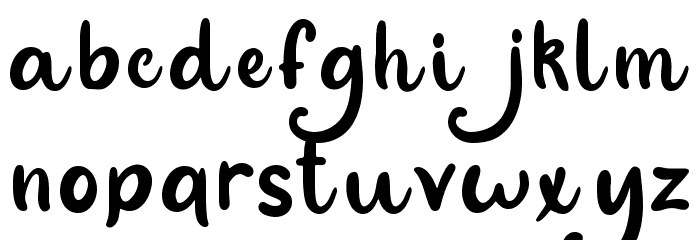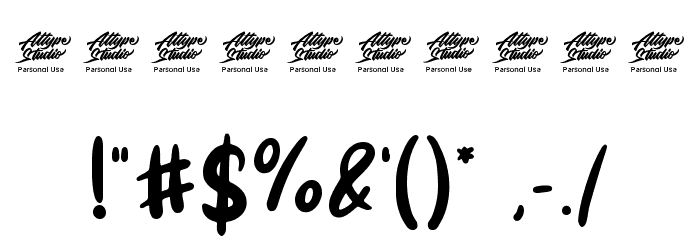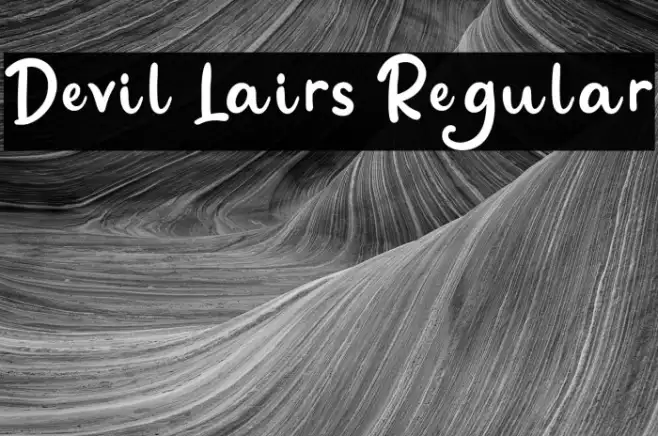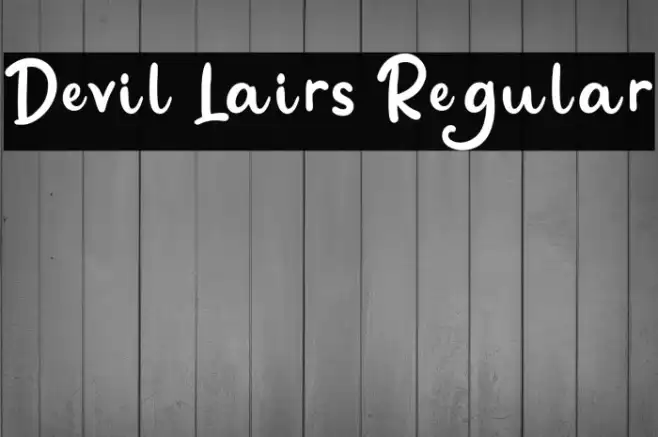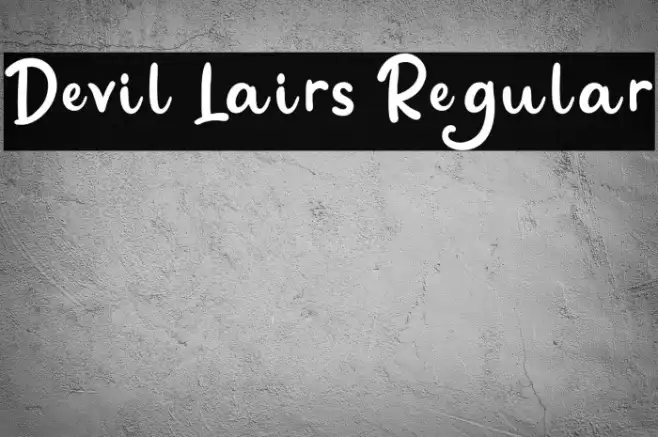
Devil Lairs Regular Font
This font features a playful and whimsical style, characterized by its bold, rounded strokes and smooth curves. The uppercase letters are tall and slightly narrow, giving a sense of height and elegance, while the lowercase letters maintain a consistent flow with their rounded forms. The font includes a full set of numerals and a variety of special characters, each maintaining the same playful aesthetic. Its handwritten appearance adds a personal touch, making it suitable for creative and informal projects. The overall design is cohesive, with a consistent stroke width that enhances readability while maintaining a unique charm.
A playful, bold, and rounded handwritten font with smooth curves.
- Proposed Projects: Ideal for greeting cards, children's books, playful branding, and social media graphics.
- Overall Style: Playful
- Use Case: Headlines, Logos, Informal Text